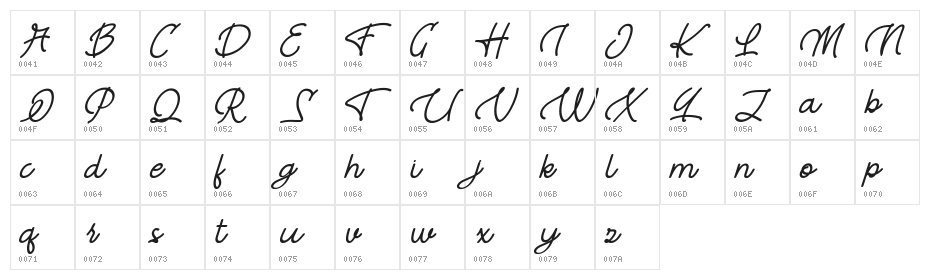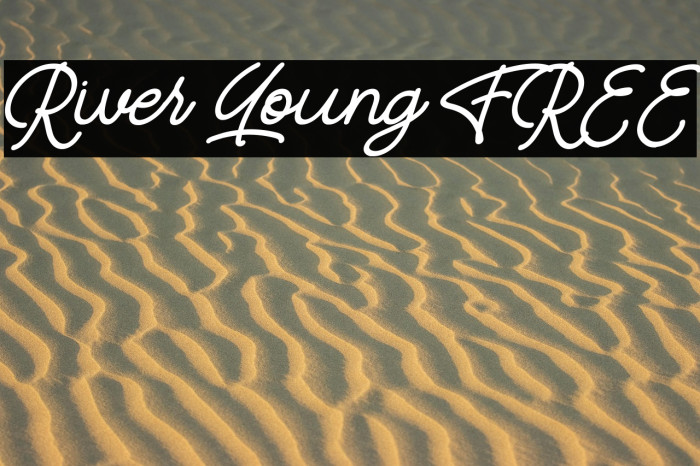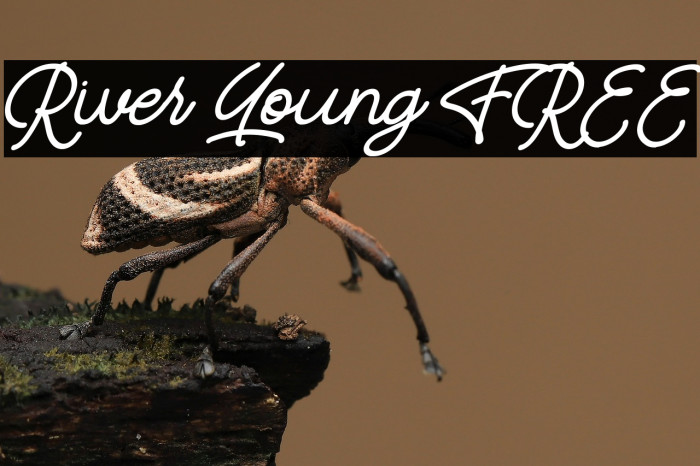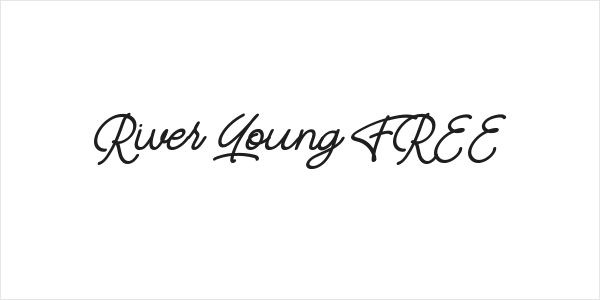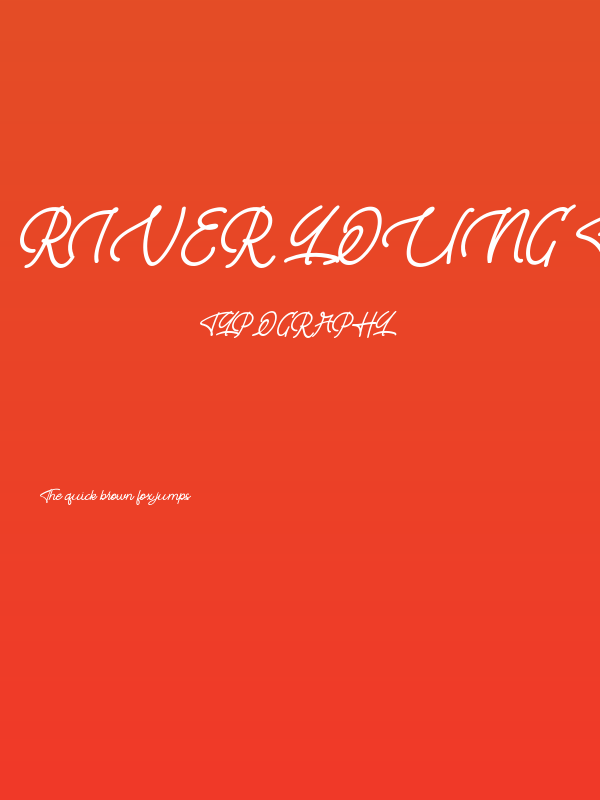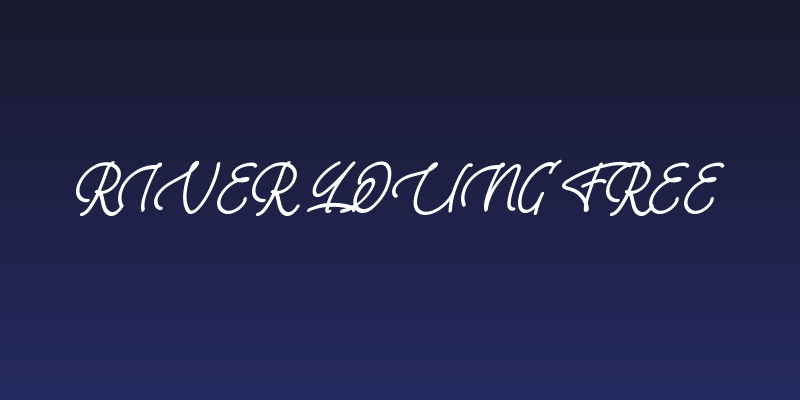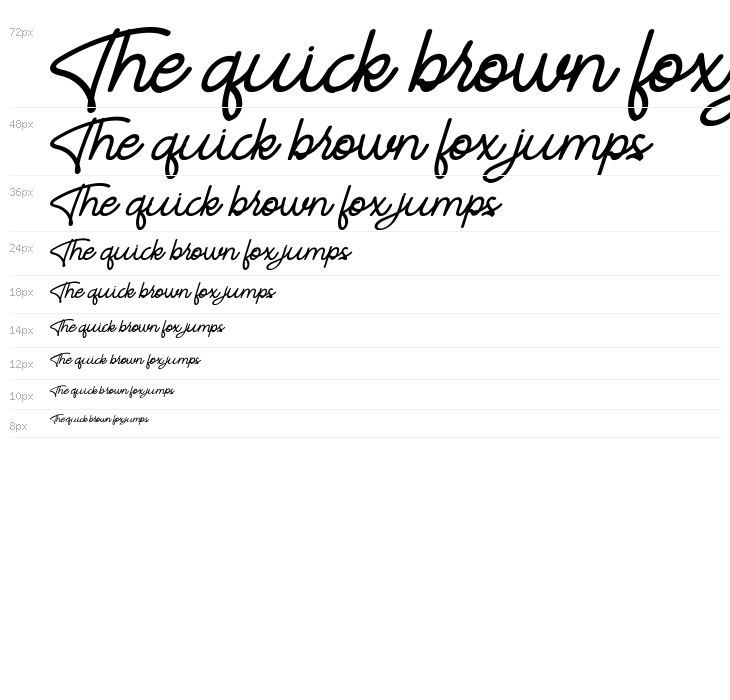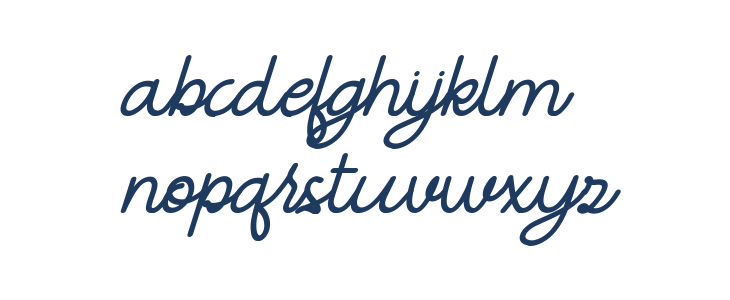
River Young FREE Font
River Young FREE Description
This font features a flowing, cursive style with elegant loops and swashes, giving it a handwritten appearance. The uppercase letters are slightly more ornate, with extended flourishes that add a touch of sophistication. The lowercase letters maintain a consistent flow, enhancing readability while preserving the script's artistic flair. The font is well-suited for projects that require a personal touch, such as invitations, greeting cards, or branding materials that aim to convey elegance and creativity. Its overall design is both classic and modern, making it versatile for various applications.
| Proposed Projects | Invitations, greeting cards, branding materials, personal stationery. |